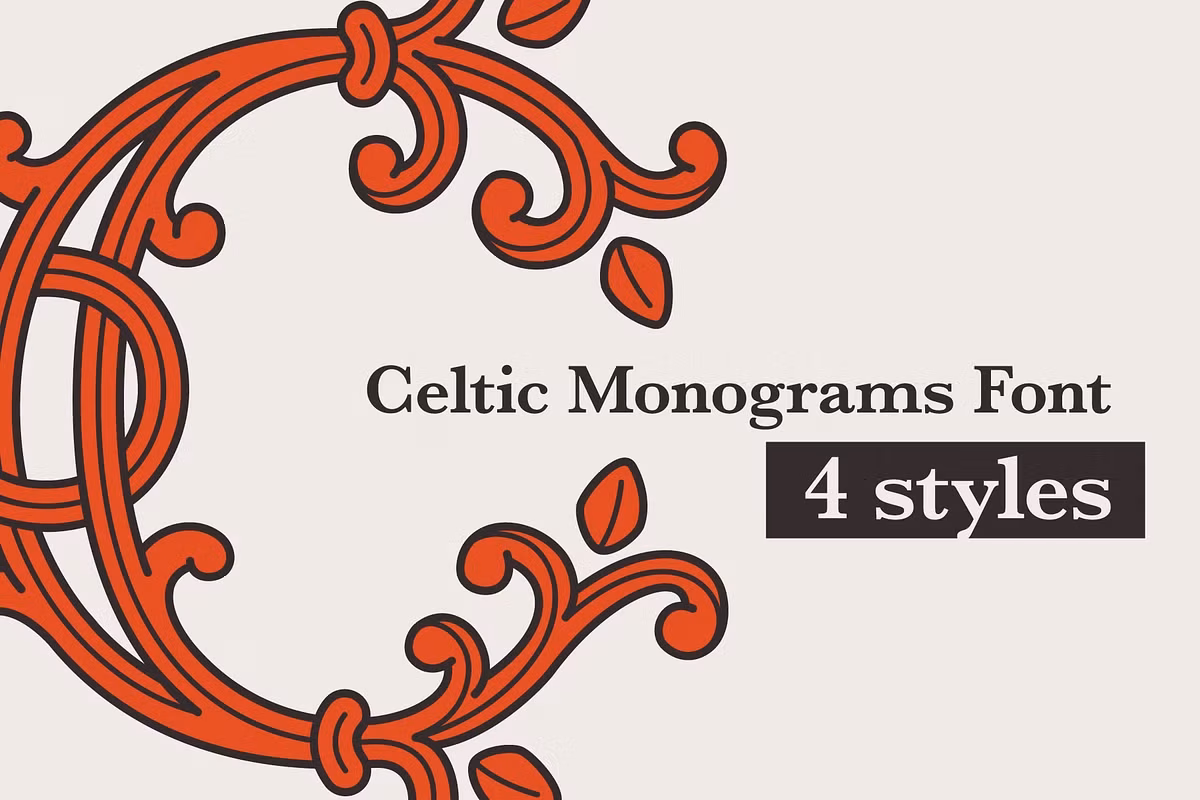
Celtic Monograms Font Family Free Download is a decorative and intricate typeface family inspired by traditional Celtic knotwork and symbols. Perfect for creating monograms, logos, and intricate designs, this font family captures the essence of Celtic heritage with its elegant and timeless knot patterns.
The Celtic Monograms Font Family includes a variety of decorative options, allowing you to create custom monogram designs and detailed typographic compositions. Whether you're working on wedding invitations, heritage branding, or intricate logo designs, this font family adds a unique and historical touch to your work.